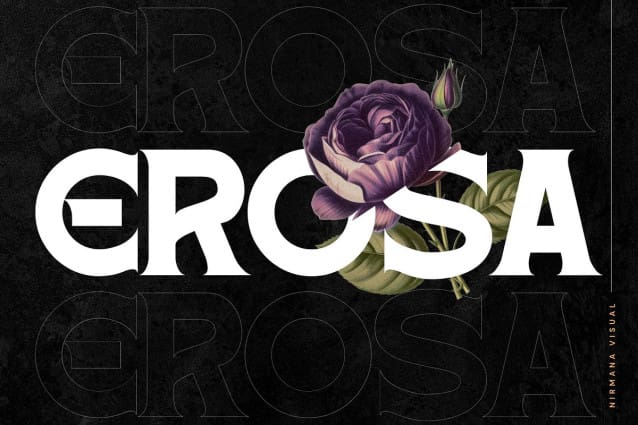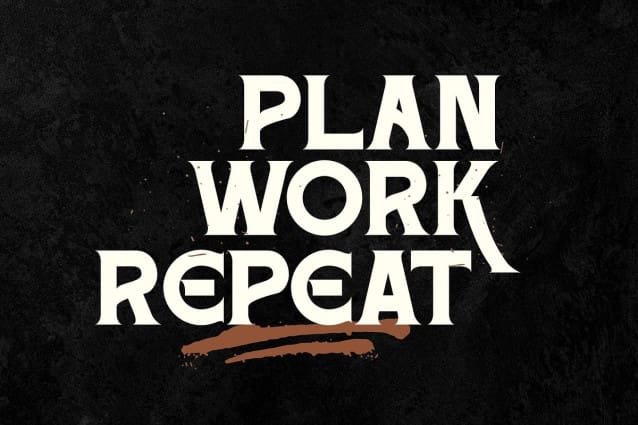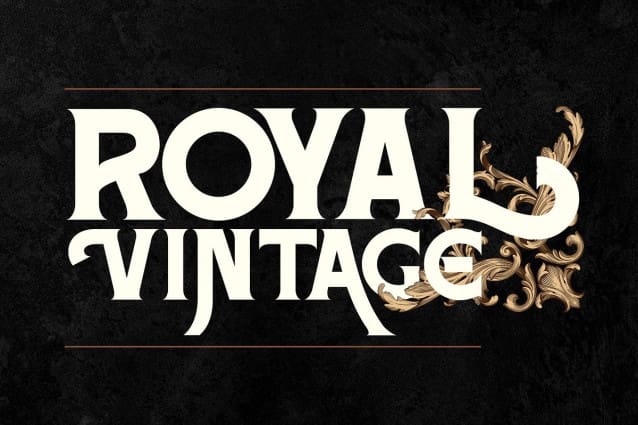
Erosa Vintage Font
Erosa Vintage Font – Serif Font offers beautiful typographic harmony for a diversity of design projects, including logos & branding, social media posts, advertisements & product designs.